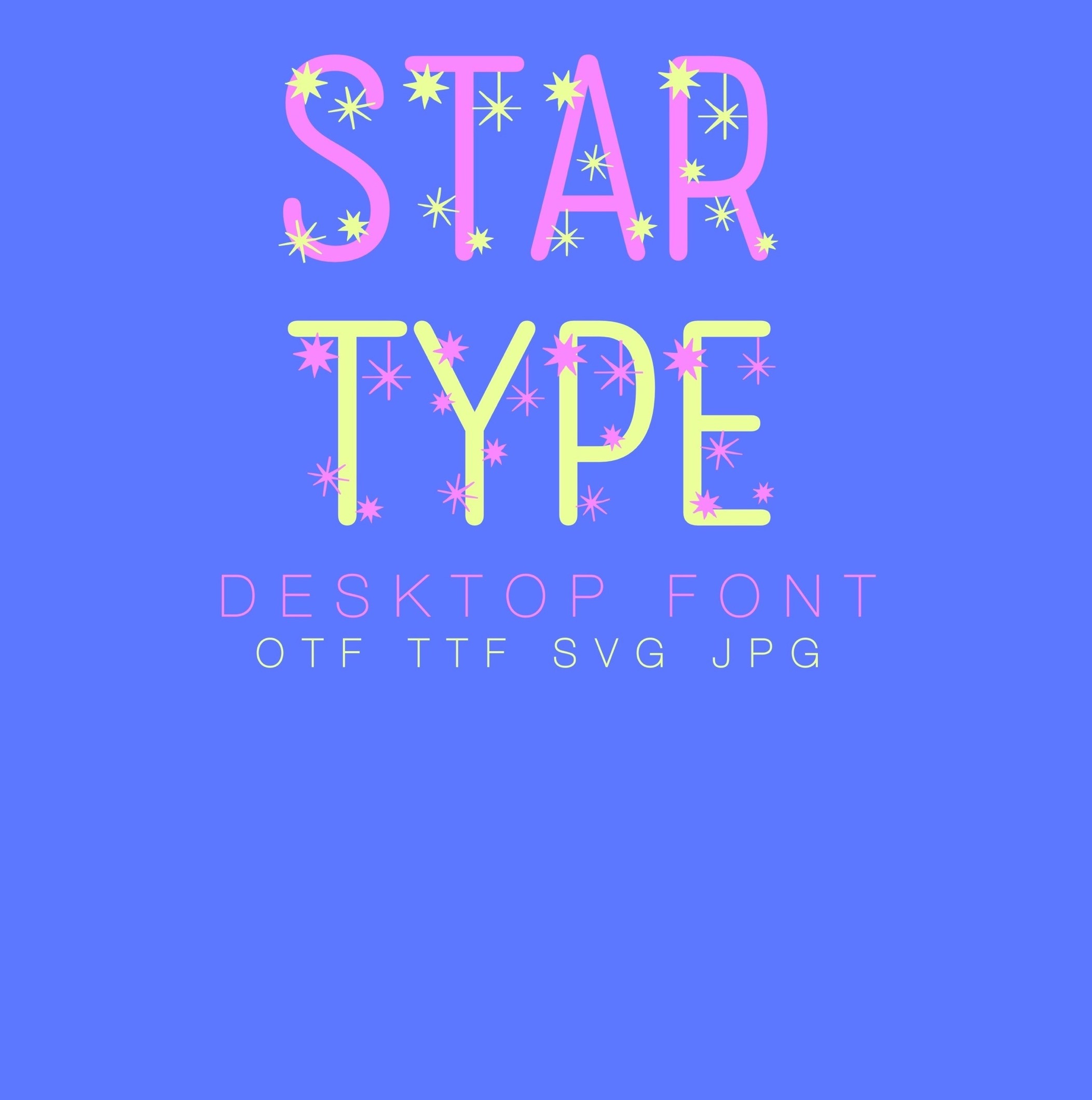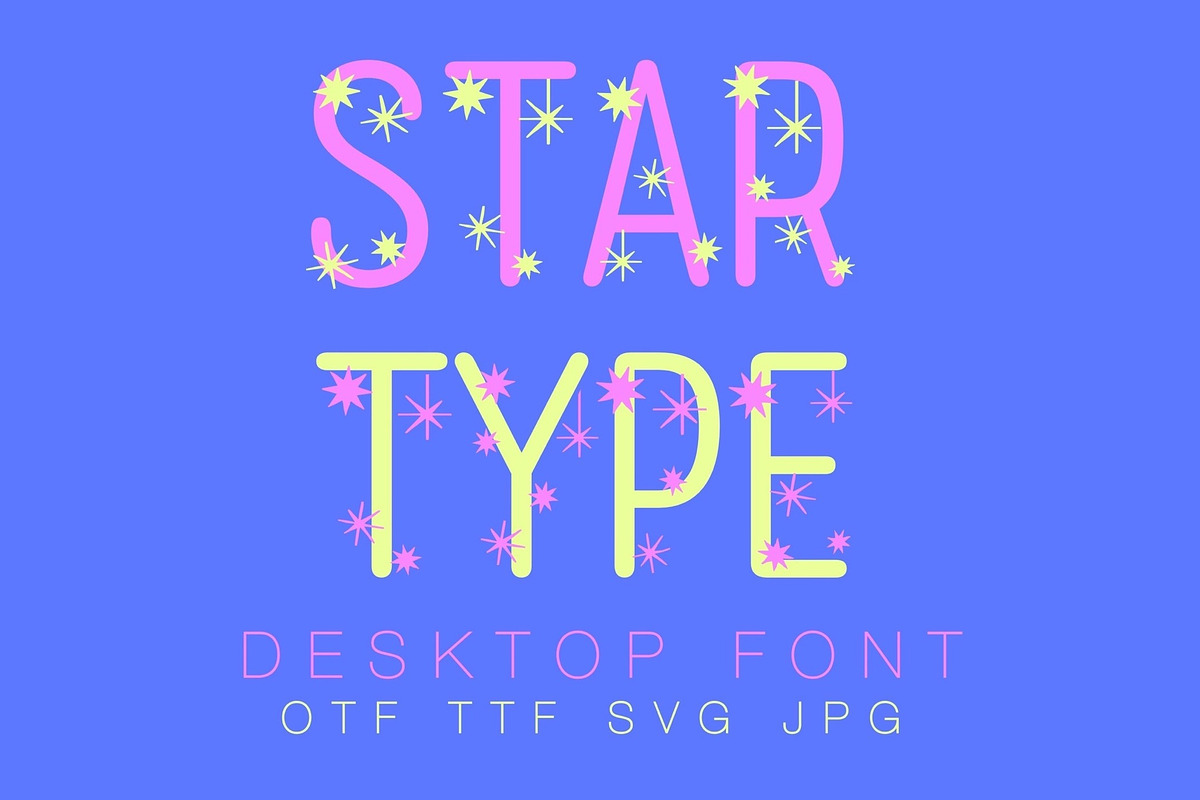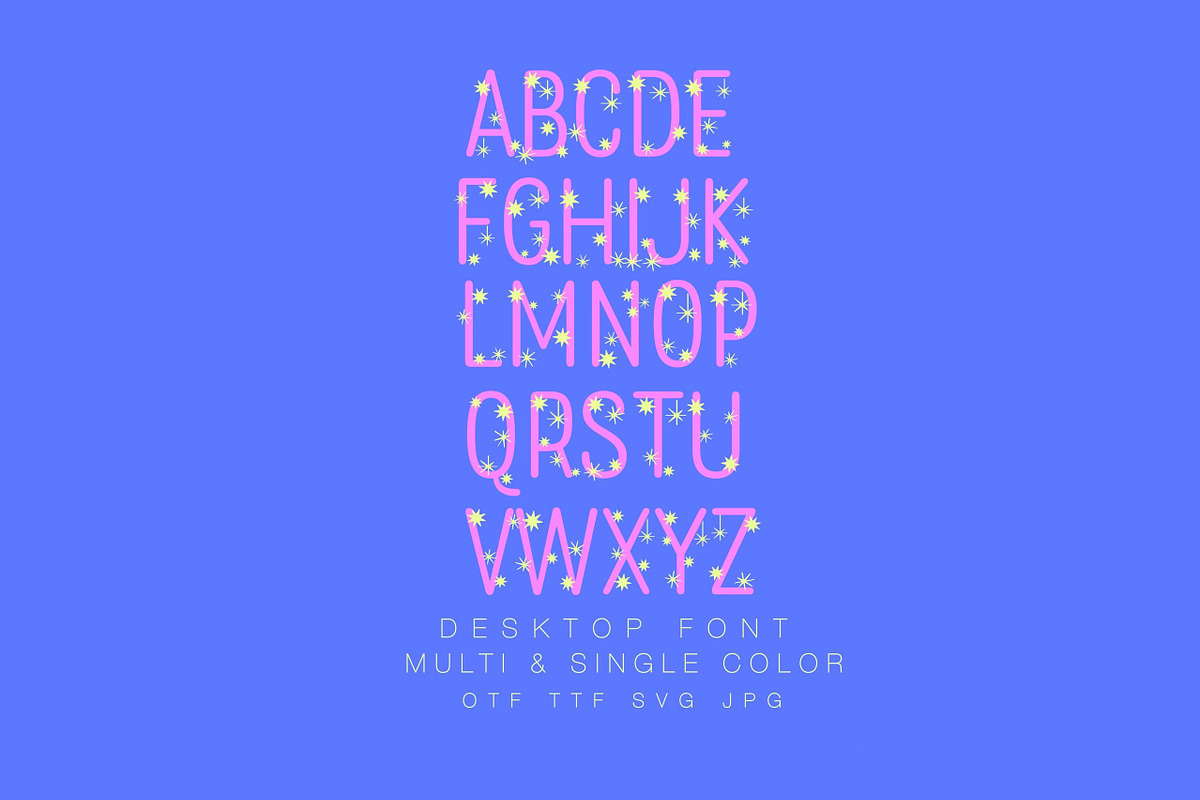
Star July 4th MonogramnDesktop Font
The Star Desktop font is a two layer font including two colors to create a monogram as shown in the first image. This font also includes a single color font as shown in the second image.
The uppercase letters in this Star Type Font are the actual uppercase letters, and the lowercase letters are the star accents in the multi color version.